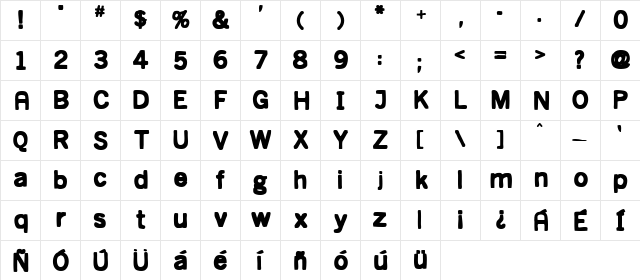
prima Black
Design Context for prima Typeface
prima is a composed and adaptable typeface that performs quietly and consistently across a wide range of design contexts.